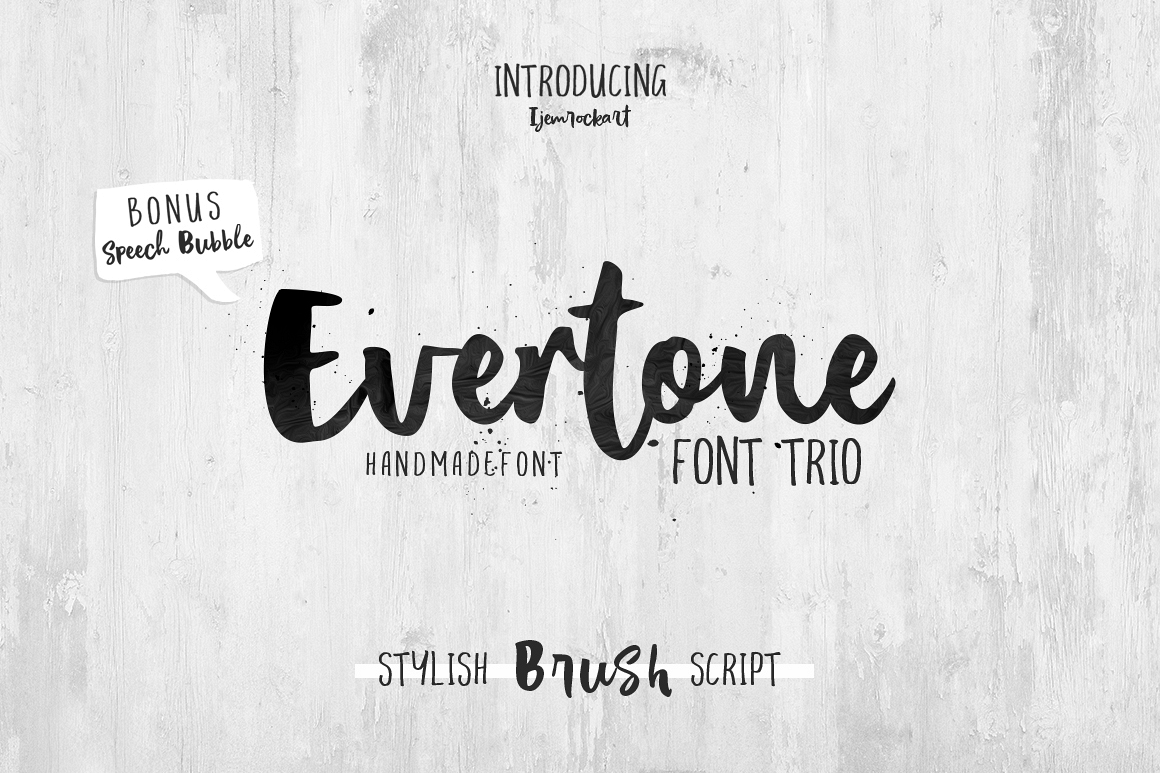
Evertone Font Trio
Evertone Script
Evertone two
Evertone one
Evertone Font Trio & Bonus is a hand lettering typeface, with authentic Clean and bold imperfections, and a very bouncy baseline It has a perfectly paired complimentary marker font , and a super handy set of bonus Swash. Ideal for logos, handwritten quotes, product packaging, header, poster, merchandise, social media & greeting cards.Files Include :
• Basic Latin A-Z and a-z
• Symbols
• Stylistic Set